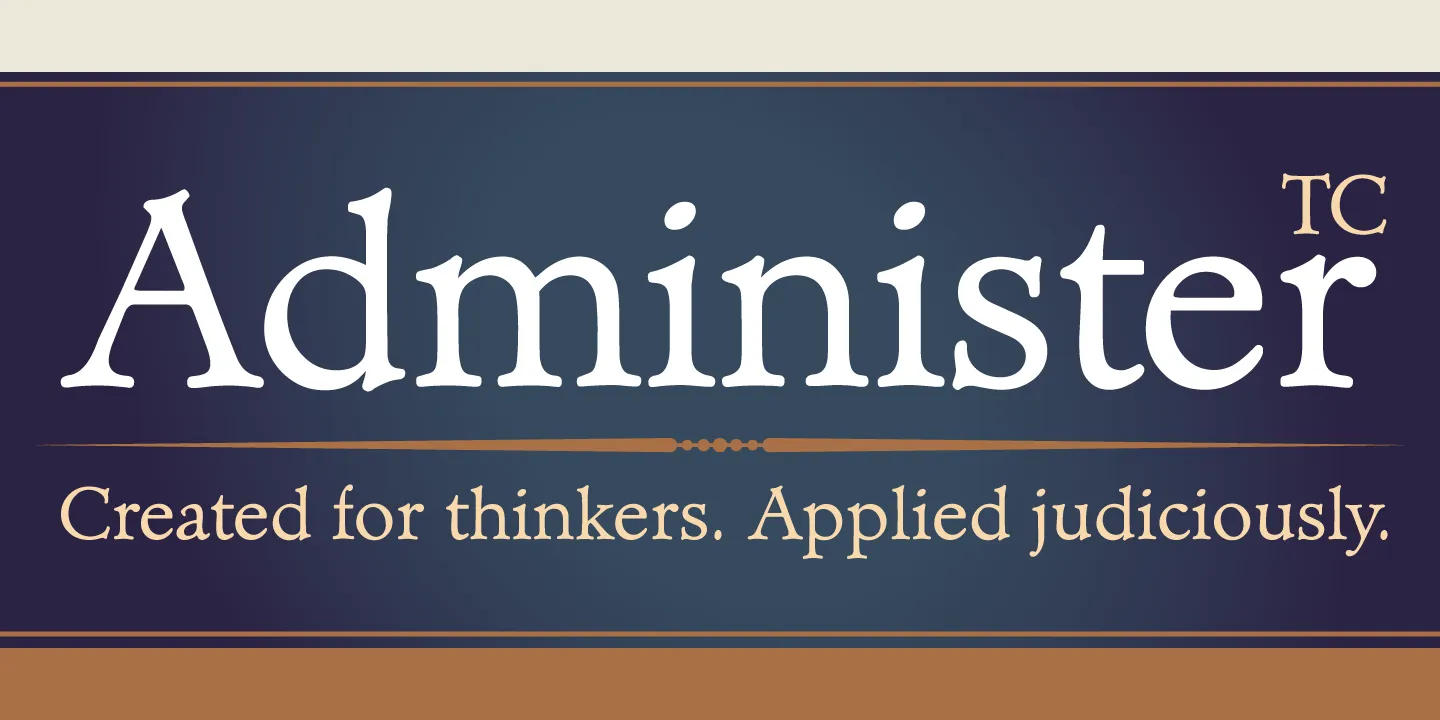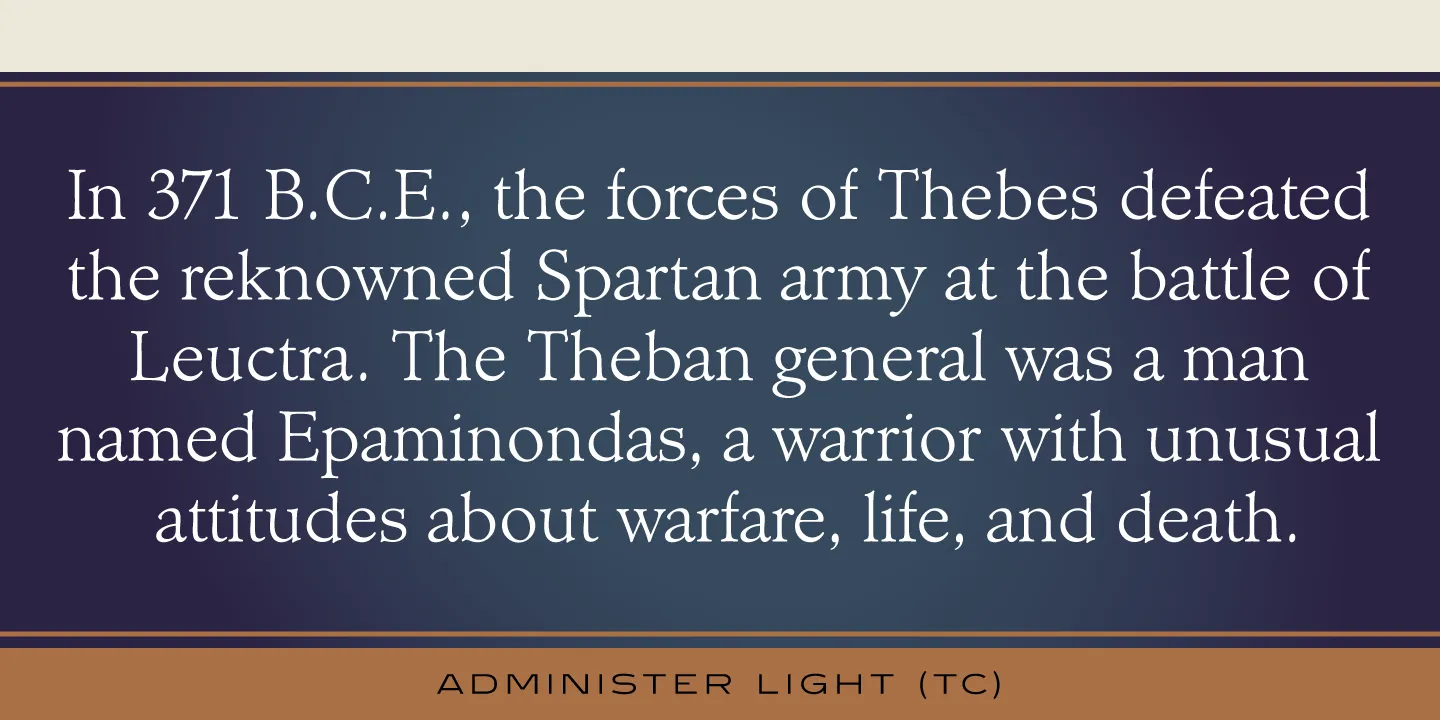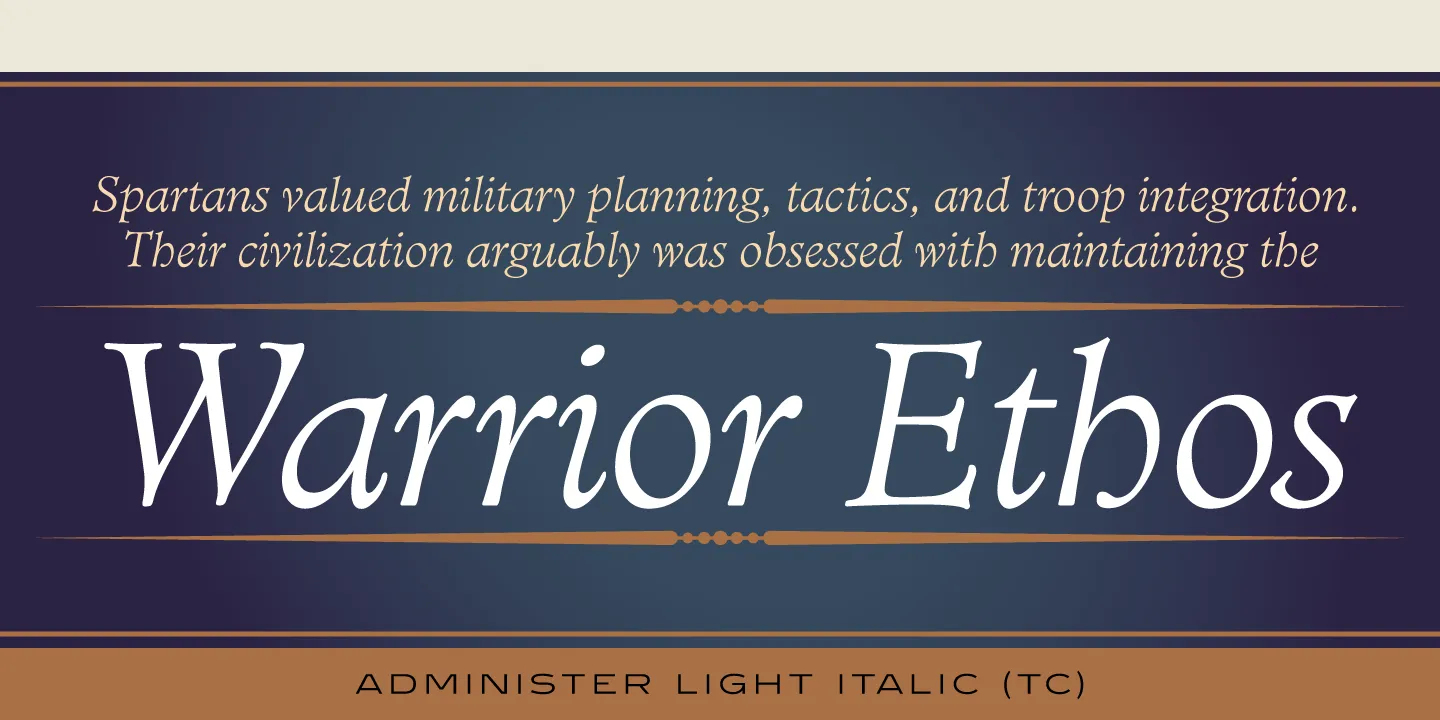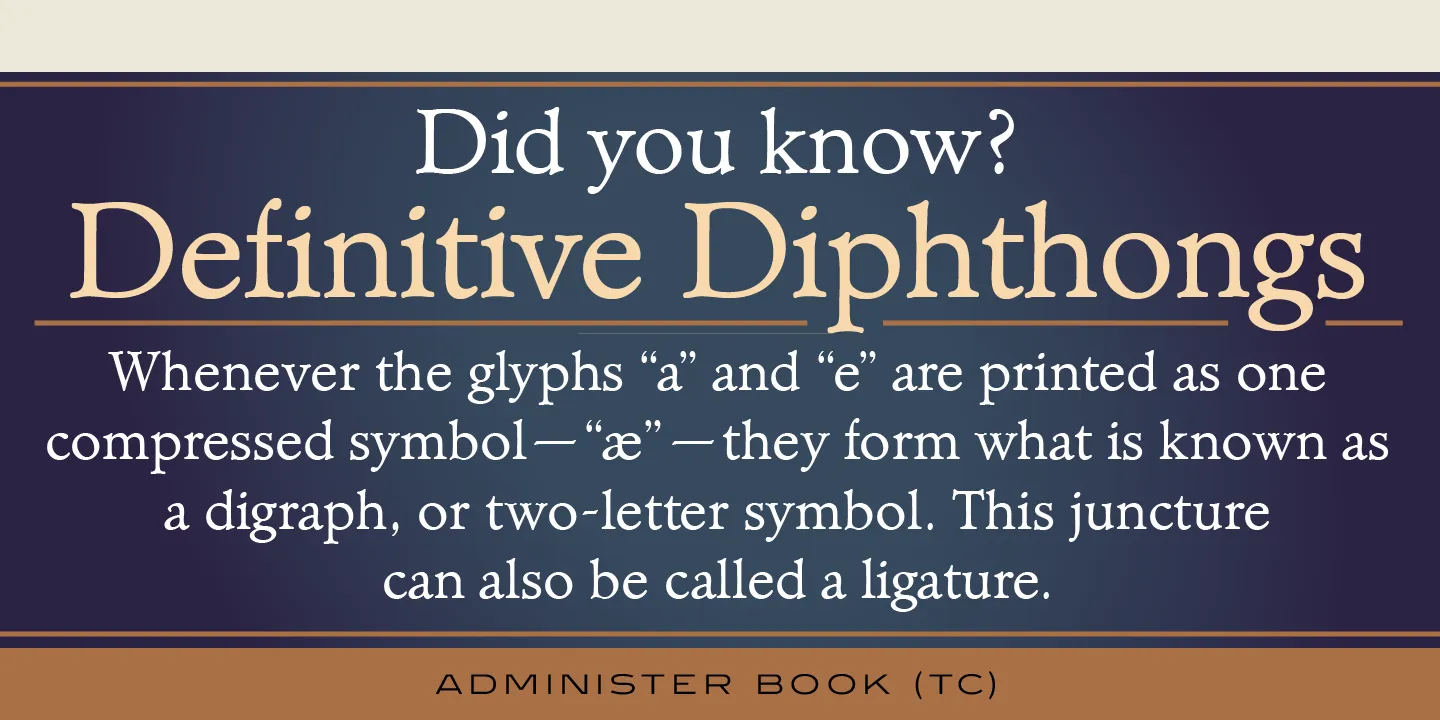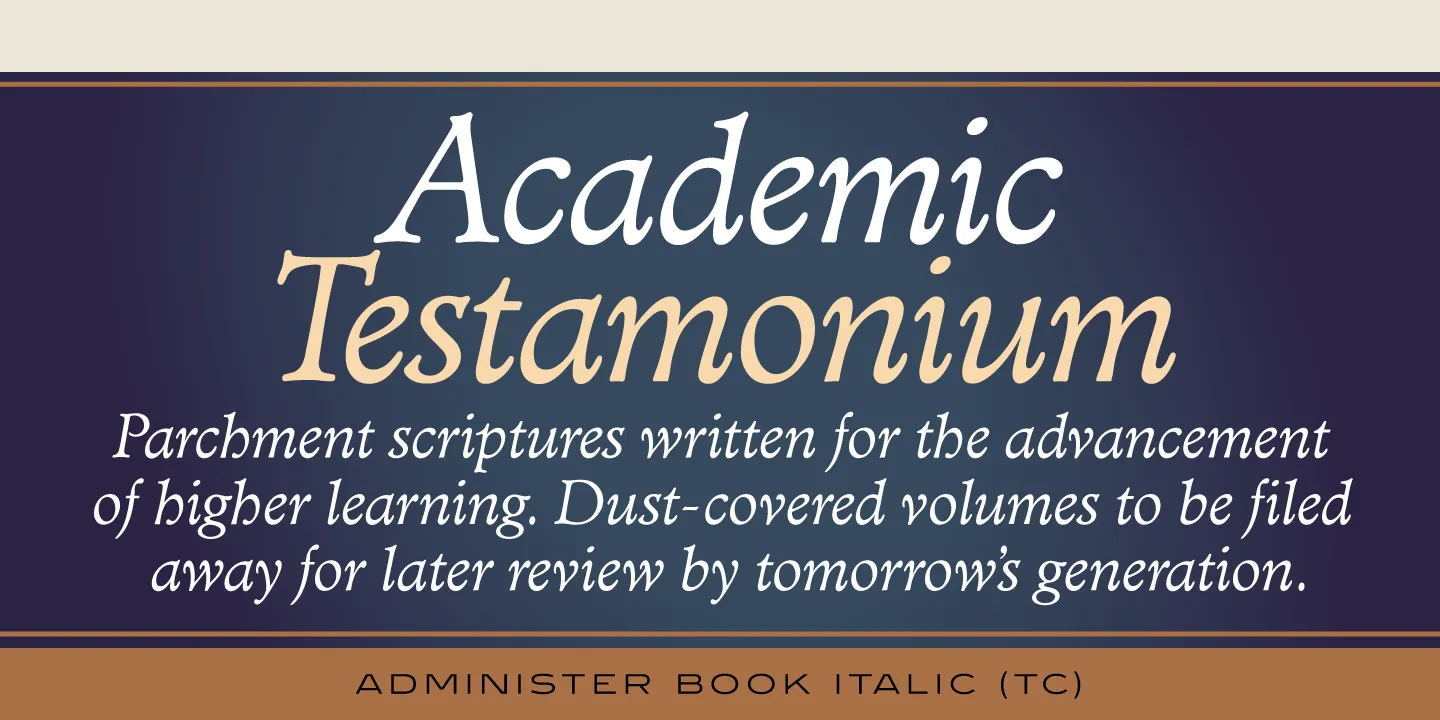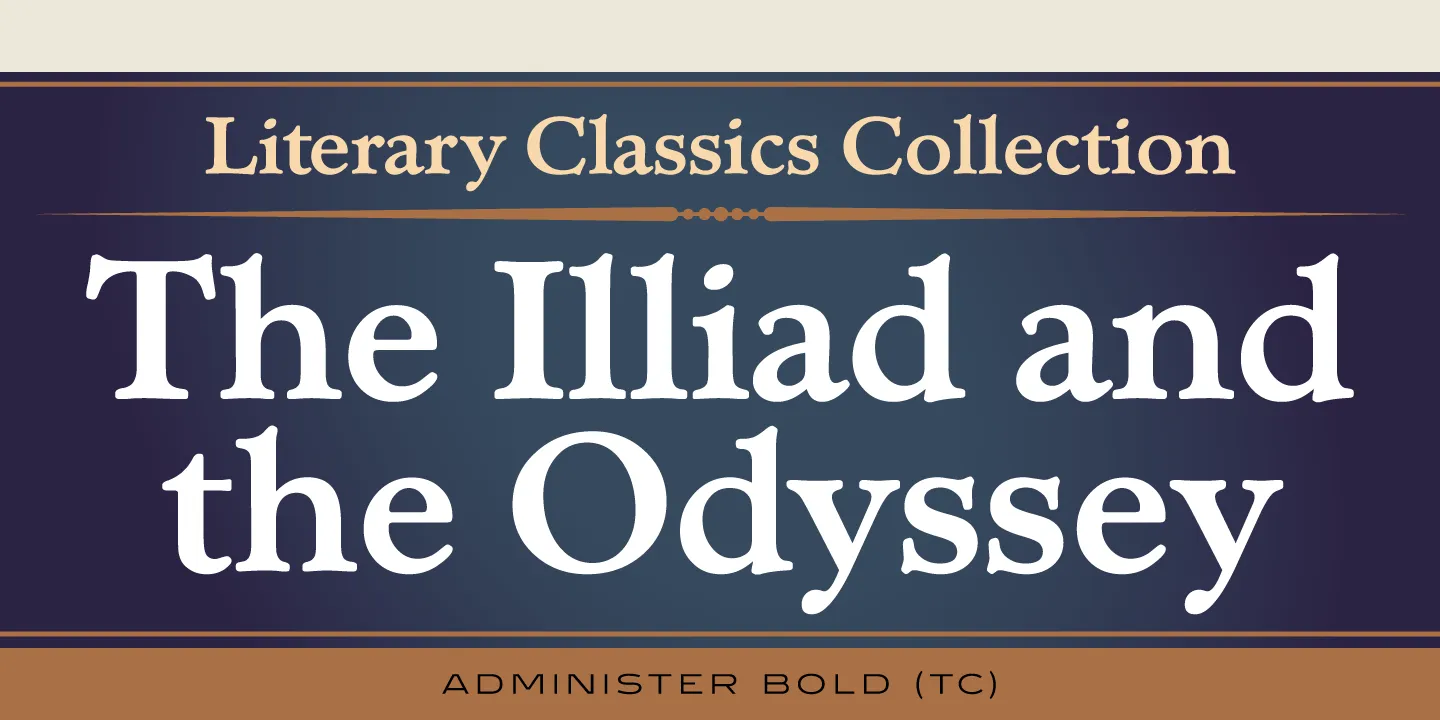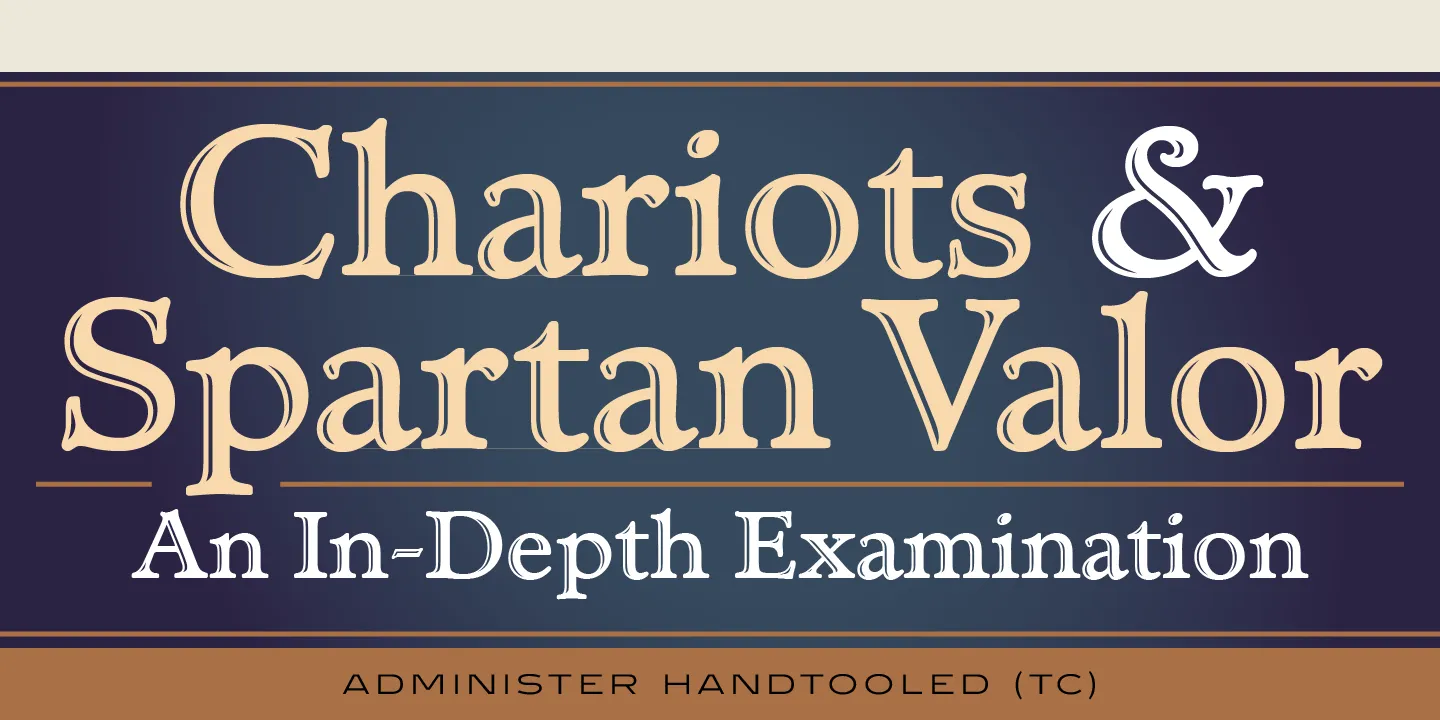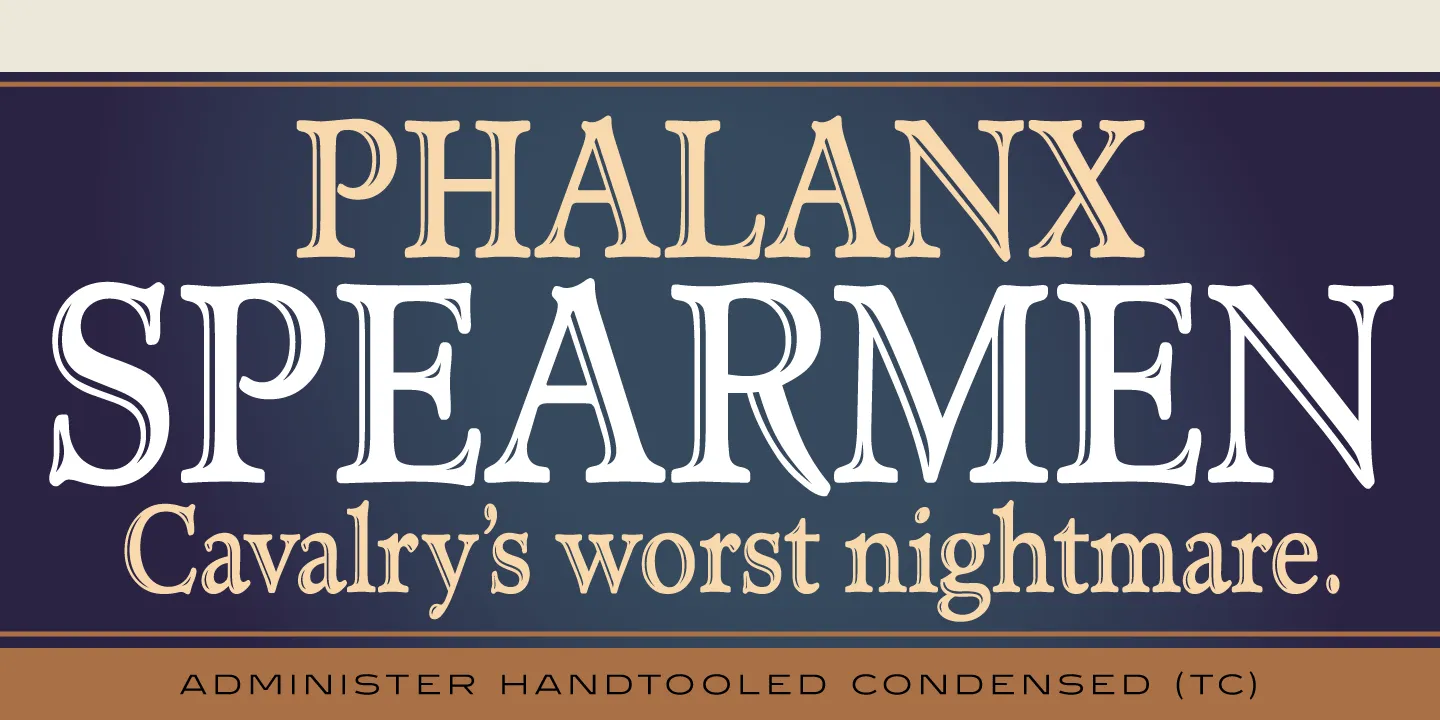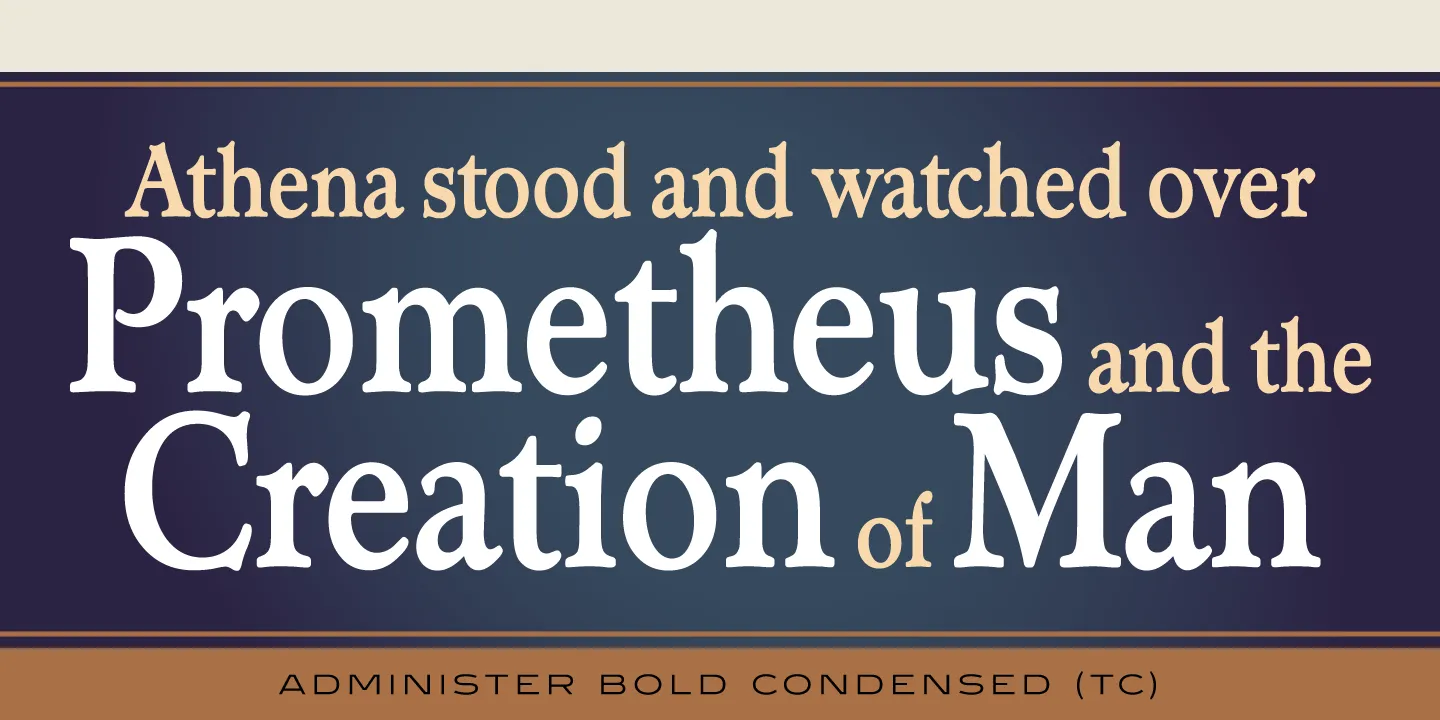
Administer Font Family
Administer TC is a Roman/Venetian-style serif font family with wide capitals. It was inspired by a typeface called ‘Minister,’ which was designed by M. Fahrenwaldt for Schriftguss, circa 1929. Les Usherwood (Typsettra) created Administer in the early 1980’s, and Steve Jackaman (ITF) refined the family for its digital release in 1994. The Light, Book, and italic weights of Administer are distinct at paragraph size, and the heavier and hand-tooled weights showcase the family’s authoritative feel in display size.